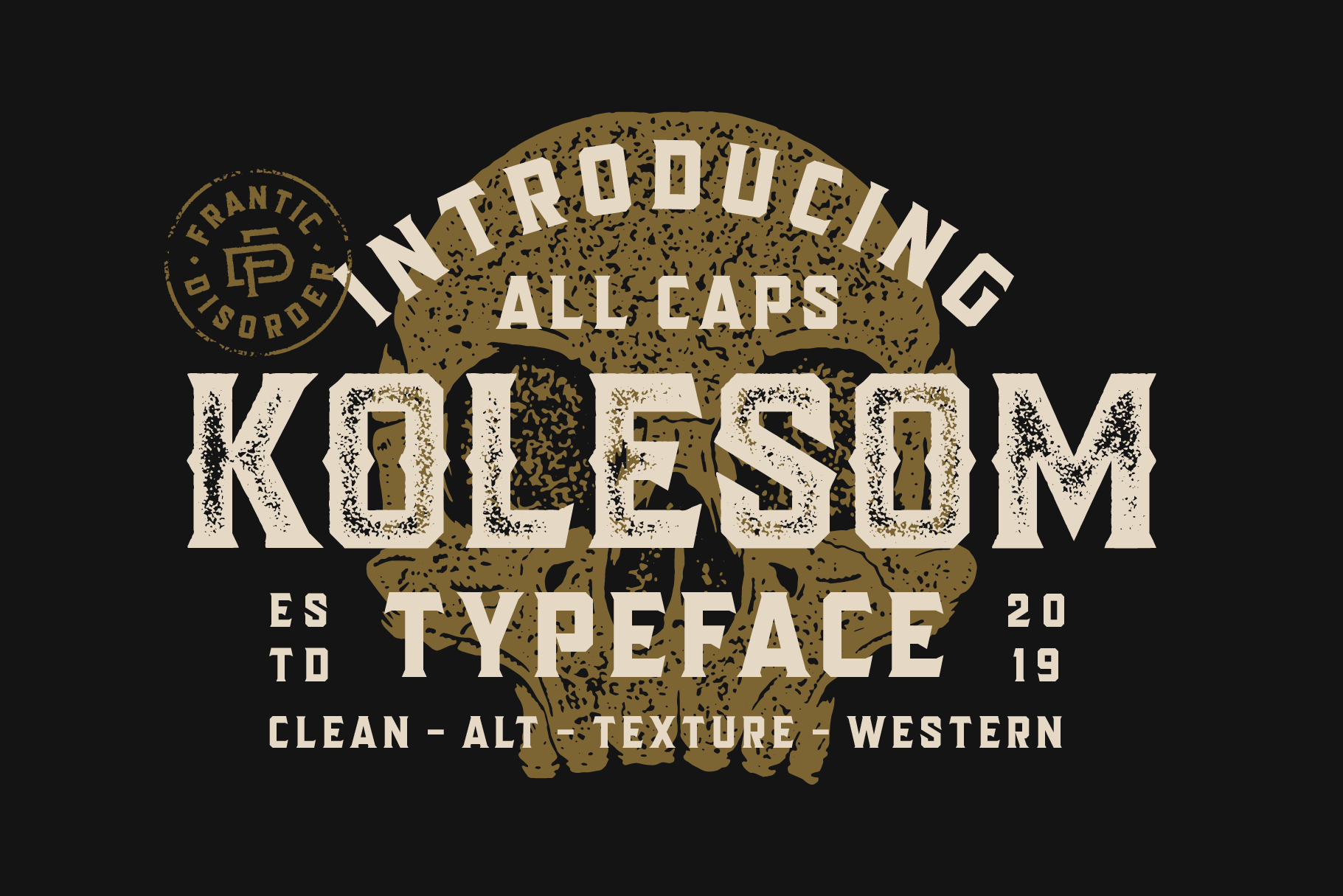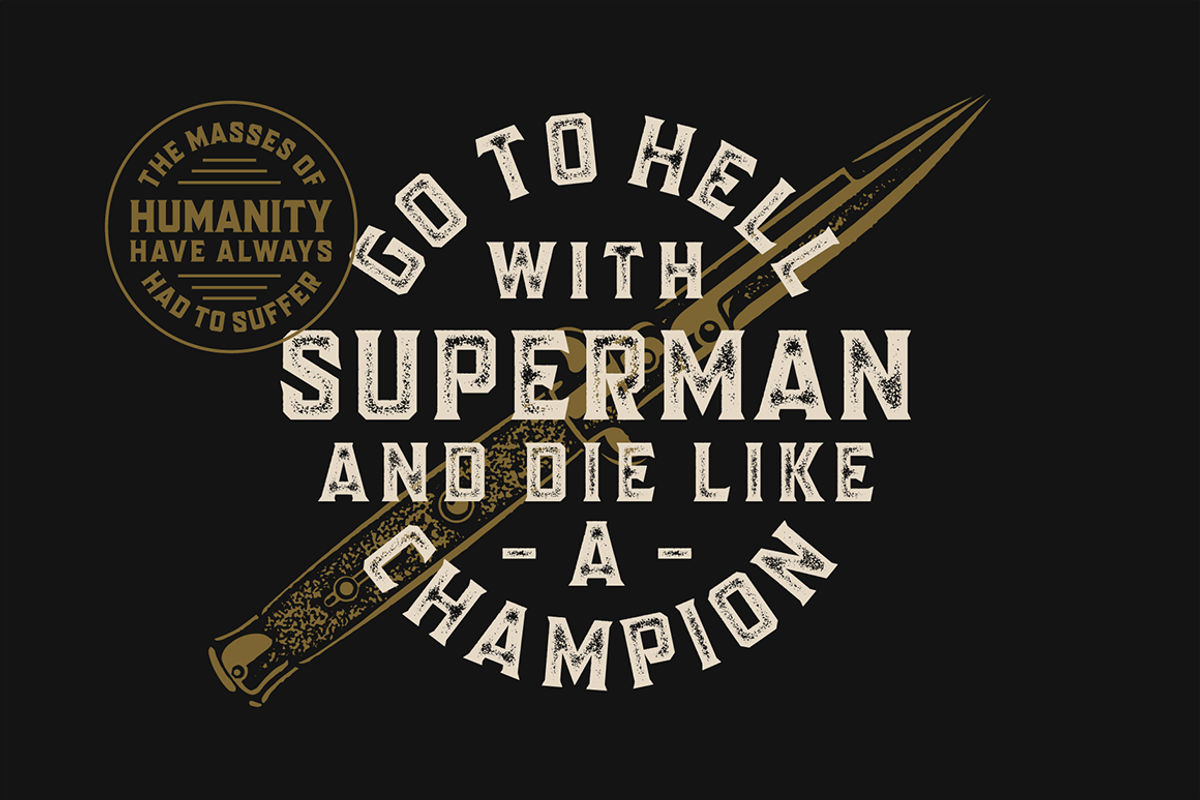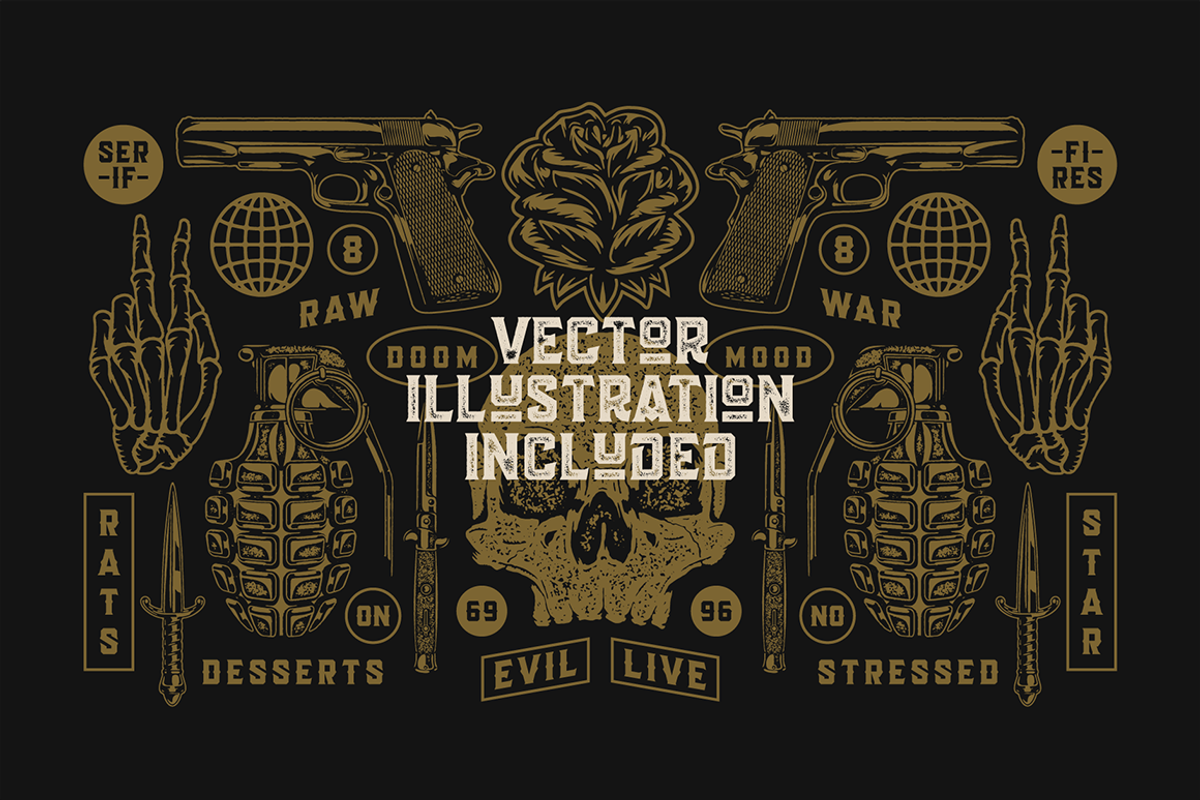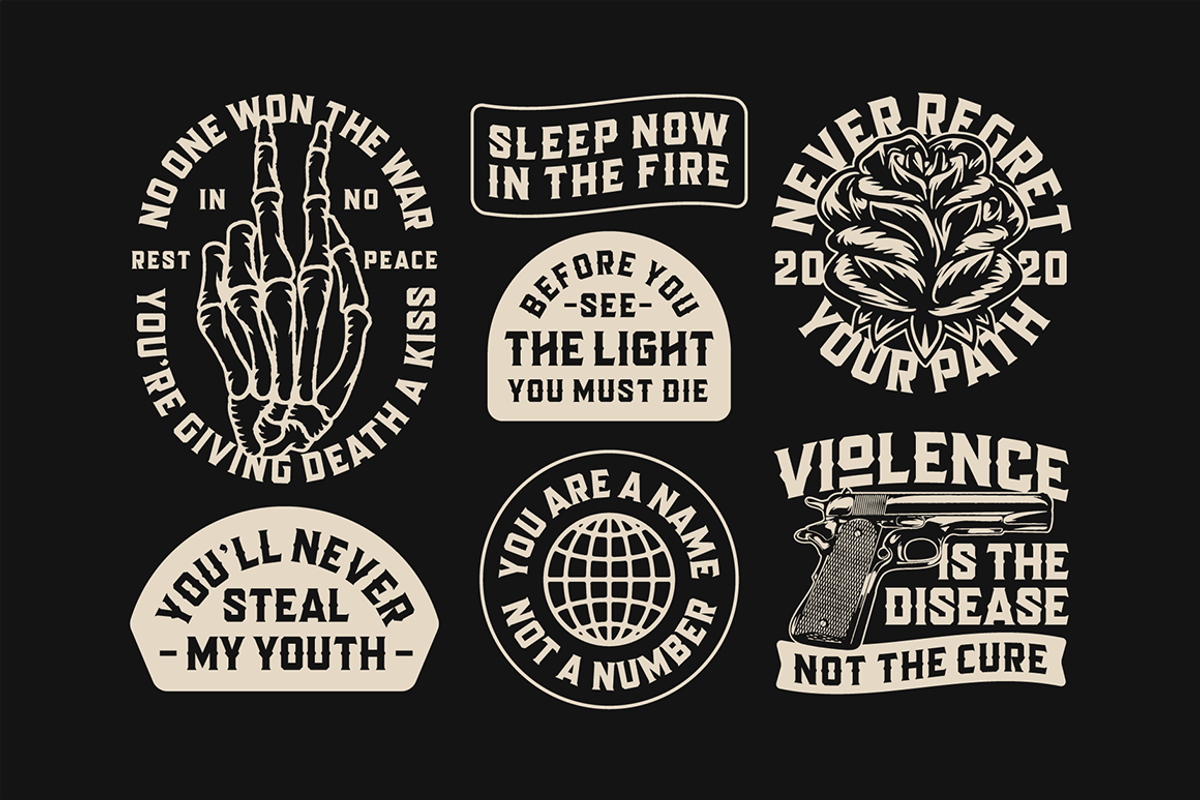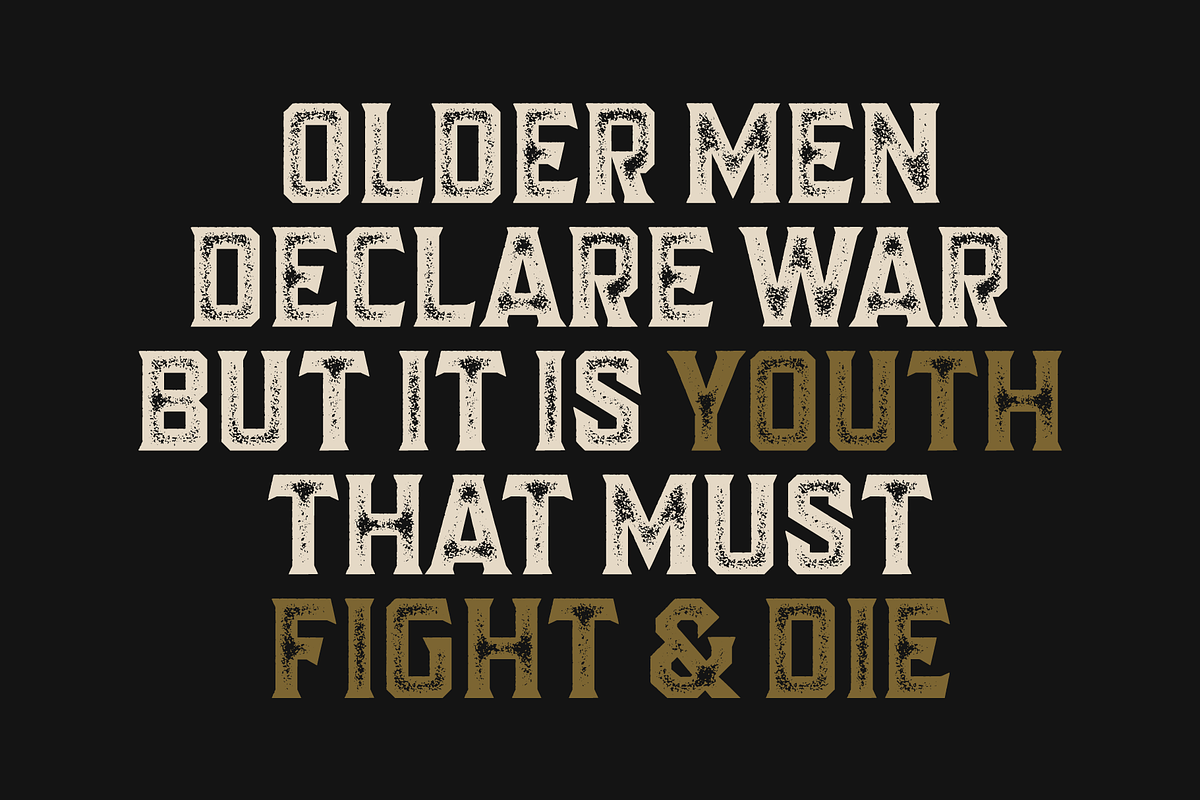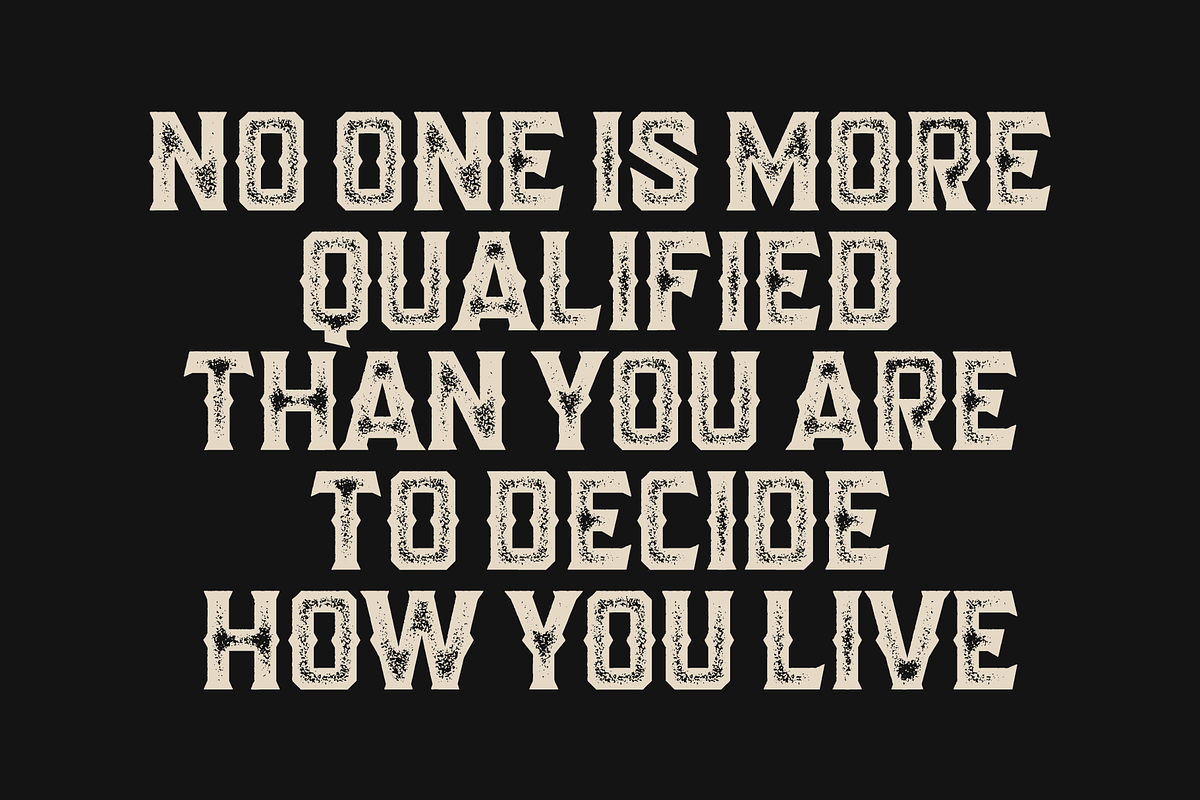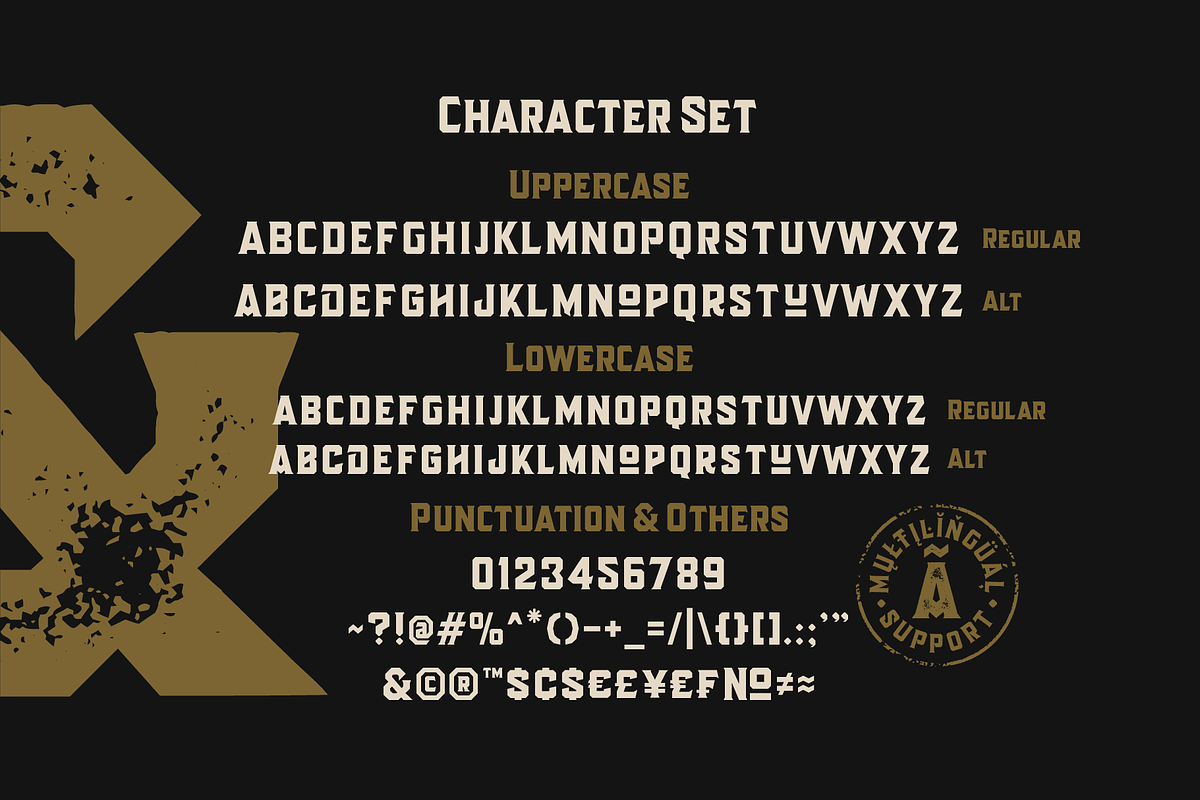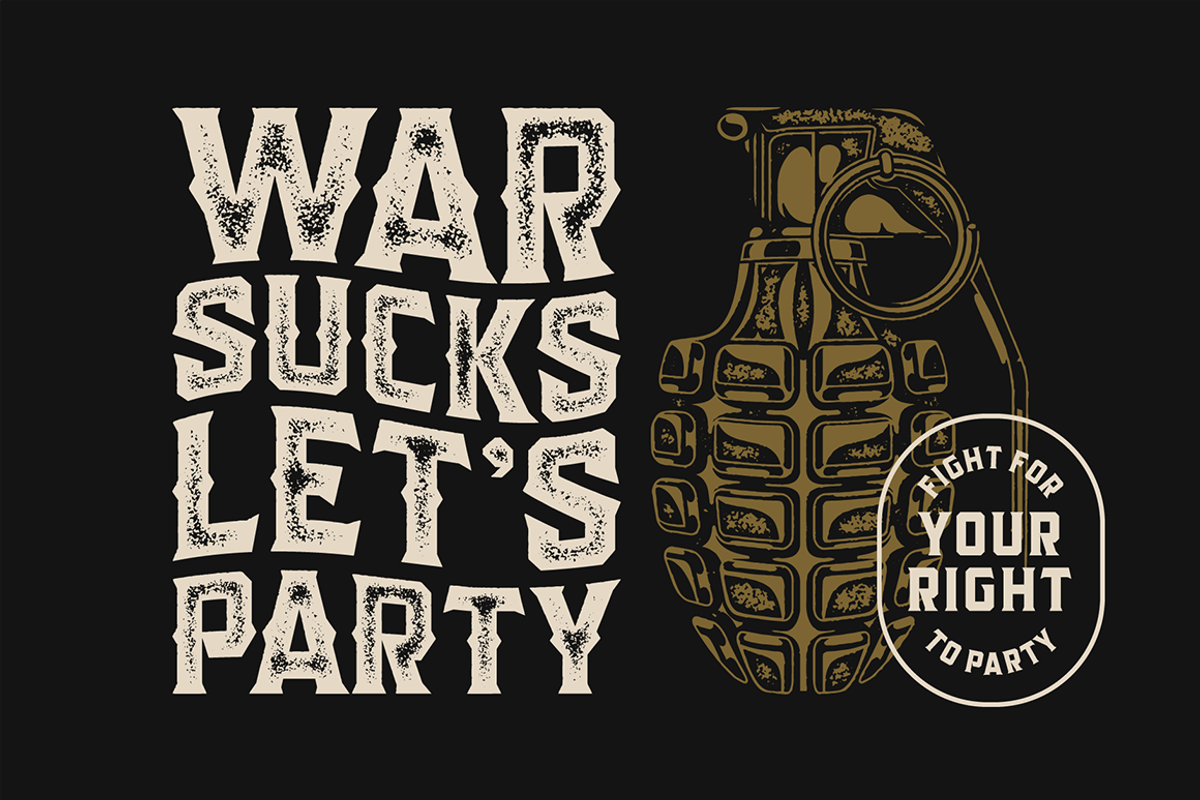
Kolesom Typeface
Kolesom is bold display font that inspired from classic rusty stuff like old signage and poster. This font has various styles of font that includes Clean, Alt, Texture, and Western. I found it perfect for poster design, t-shirt design, and other display design needs. Works best in 100pt and above, the bigger the better.